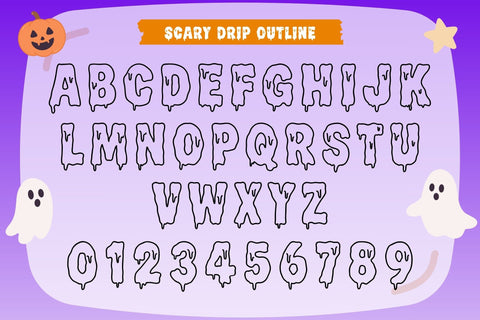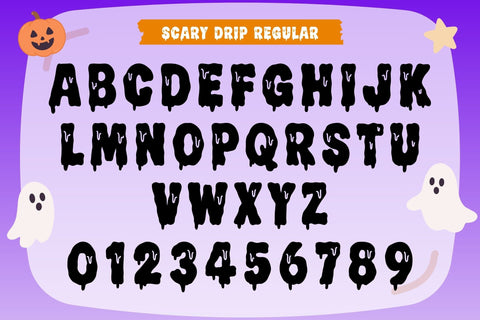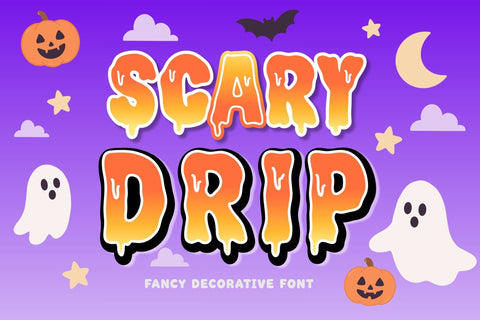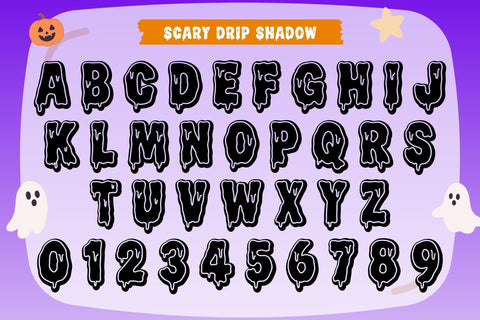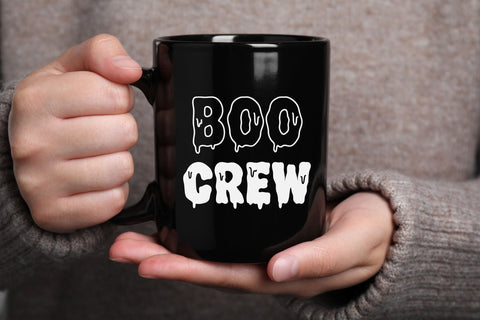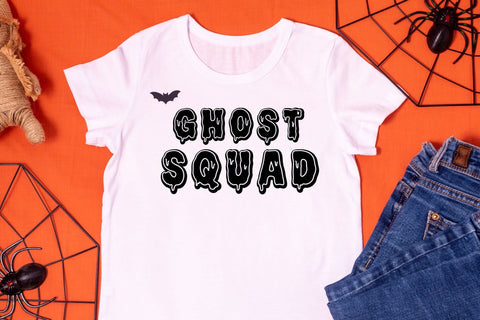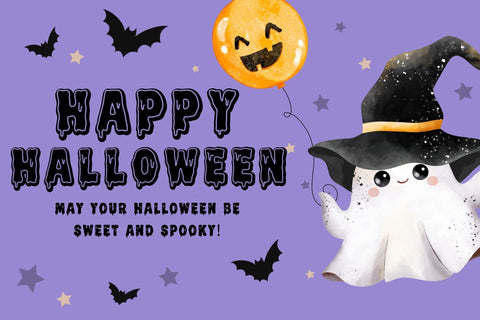
Scary Drip - Halloween Drippy Font – Regular, Outline & Shadow
Make every headline scream “Halloween”! Scary Drip is a chunky drippy font with Regular, Outline & Shadow styles that stack flawlessly for layered color and sticker-style looks. This cute-but-creepy font reads great on invites, shirts, mugs, stickers, posters, party signs and more.